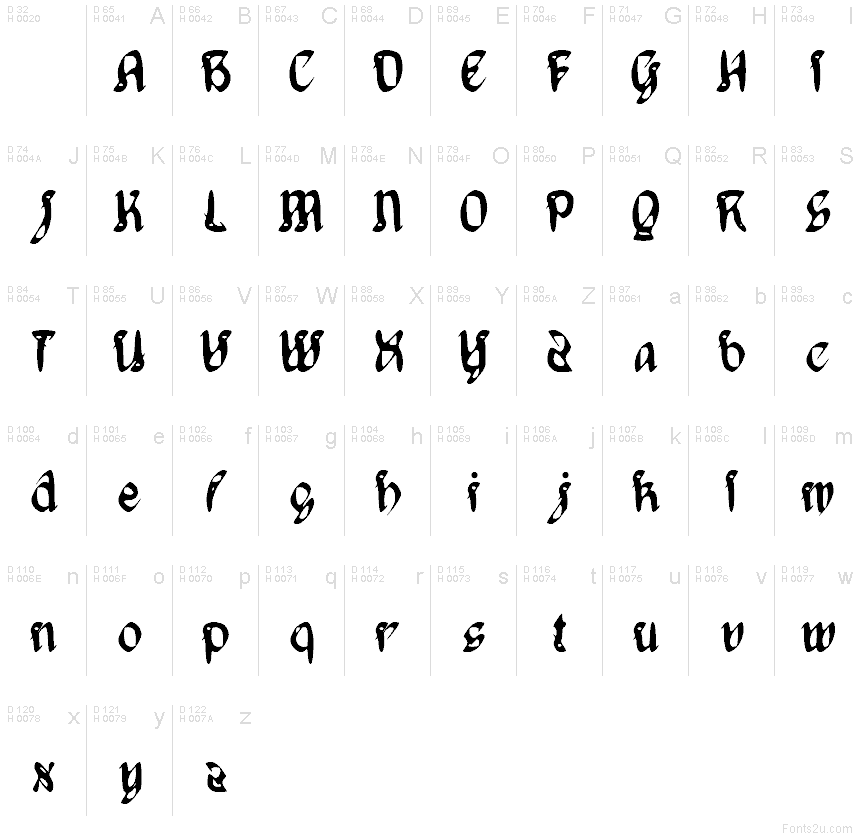
CSNoisyDrawn-Regular Demo
CS Noisy Drawn font by Craft Supply Co. is a free gothic font following the medieval style in its letters and overall presence. The characters are marked by their evident decorative appearances that reflect influences from the past, precisely those used in gothic elements. Its artistic flair, influenced by history, tracks back to the 11th century in its aura.
This traditional font with a strong historical feel fits designs related to books, posters, logos and packaging projects. Use it to give a specific exciting look to apps or web designs along with other digital media platforms such as magazine pages and covers. It is great for designing invitations or greeting cards as well as impressive stationery items like business cards and letterheads.